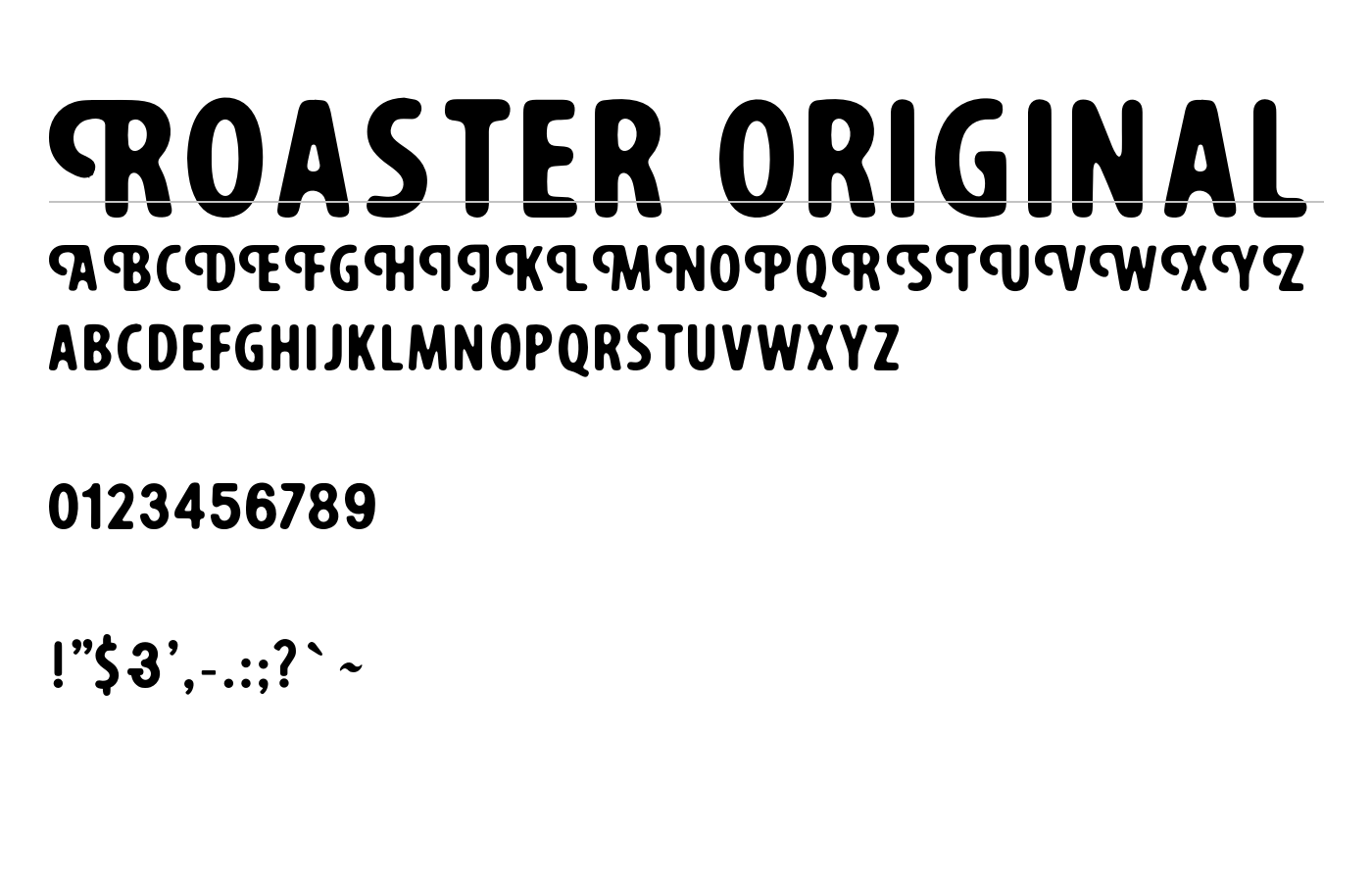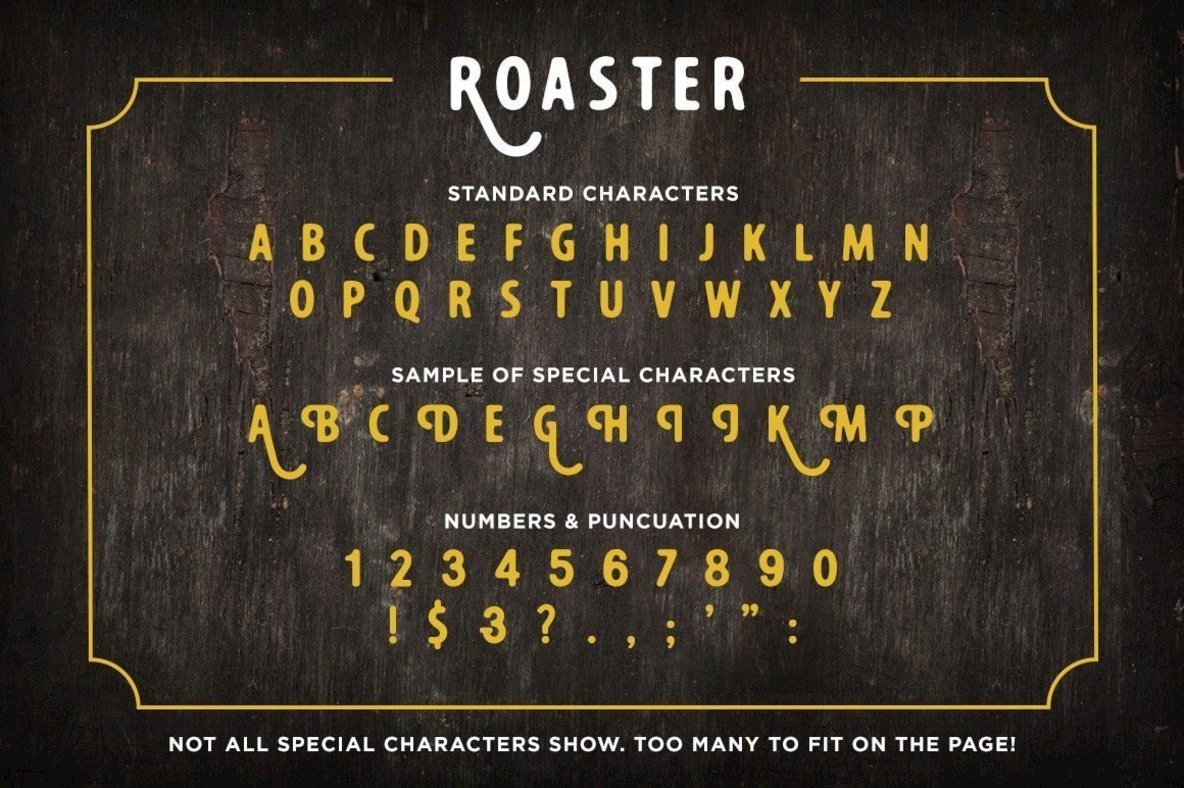
Roaster is a bold and playful sans serif font with rounded, chunky letterforms that bring a friendly and approachable vibe. Its high x-height and uniform stroke weight make it highly readable while maintaining a casual, fun character perfect for branding, headlines, and creative projects aiming for a vintage yet modern feel. This font works well in logos, packaging, and editorial designs where a warm, inviting style is desired.
Roaster Font
About Roaster Font